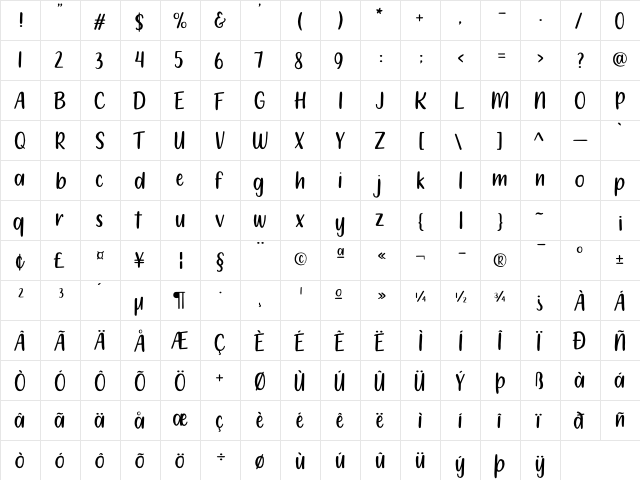
212 Moon Child Sans Regular
| Foundry | 212 Fonts |
| Designer | Elizabeth McLain |
Design Context for 212 Moon Child Sans Typeface
212 Moon Child Sans has an approachable, lighthearted character — its loose, expressive forms are well-suited to children's content, casual branding, and fun-first design.
Well-suited to food and beverage brands with personality, educational materials, and fun-forward identities.
Font Pairing: Pairs well with a rounded or humanist sans for body copy, maintaining the friendly tone without relying on 212 Moon Child Sans to carry extended reading.
Pro Tip: Use 212 Moon Child Sans at larger display sizes where its expressive character can land. Pair with a clean, simple sans for body copy to maintain readability.